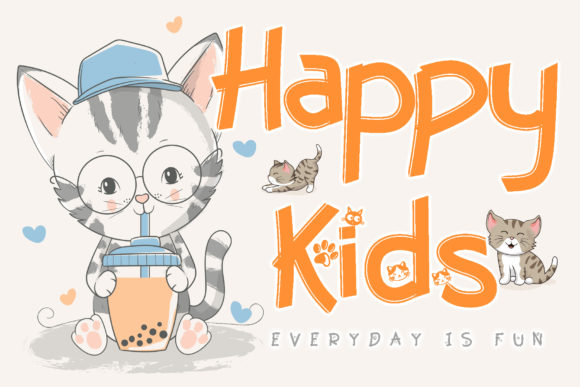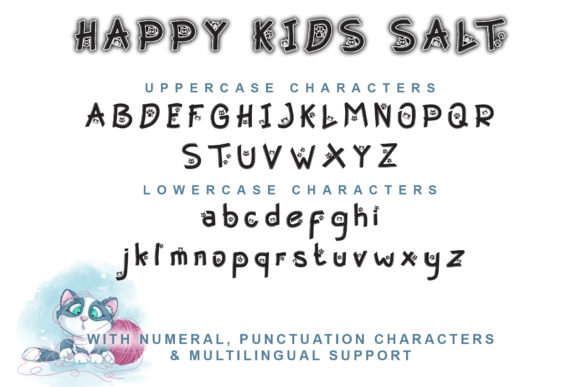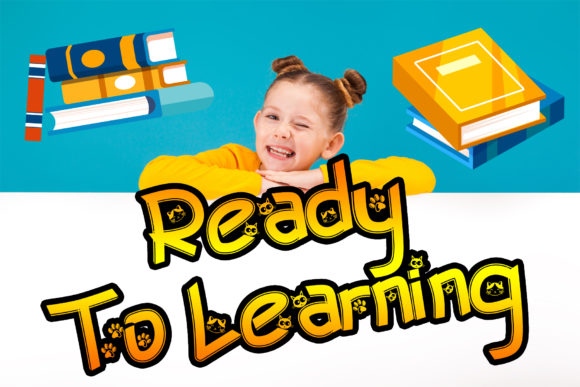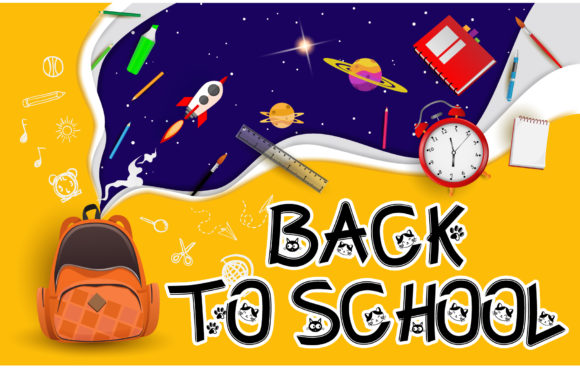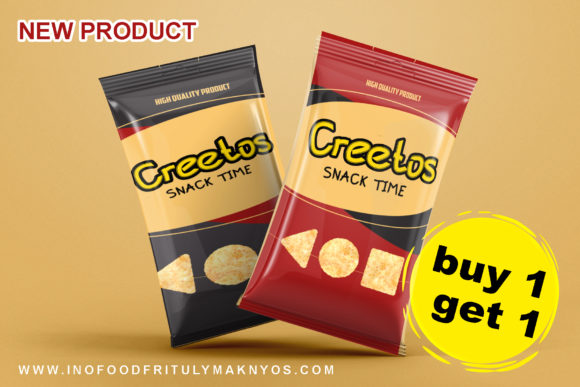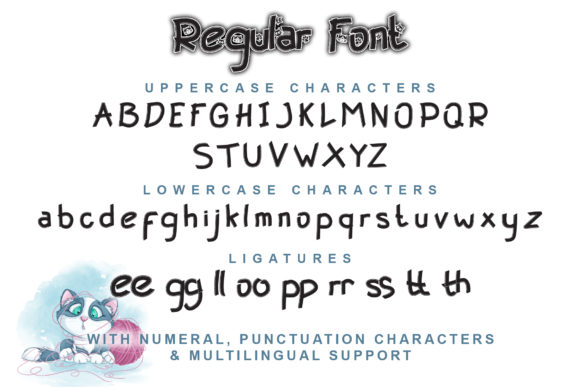
Happy Kids Font
About Happy Kids Font
Happy Kids is a whimsical handwritten font. It features sweet animals-themed characters that will add a special touch to your projects. Get creative with its childlike playfulness, and use it to brighten up any kids and school project!